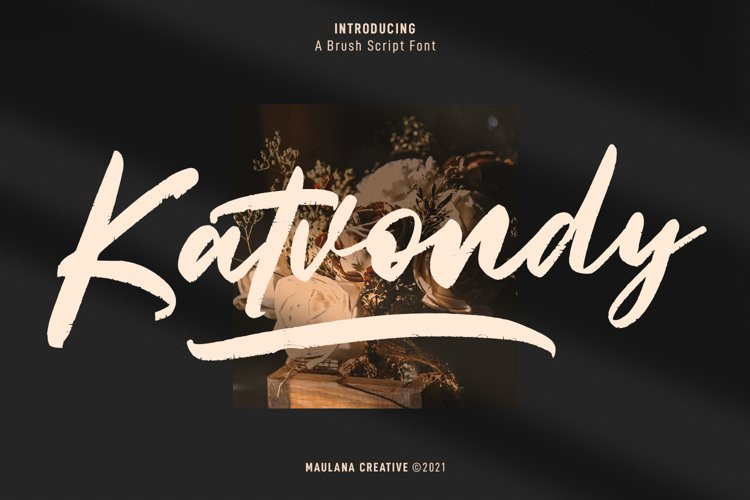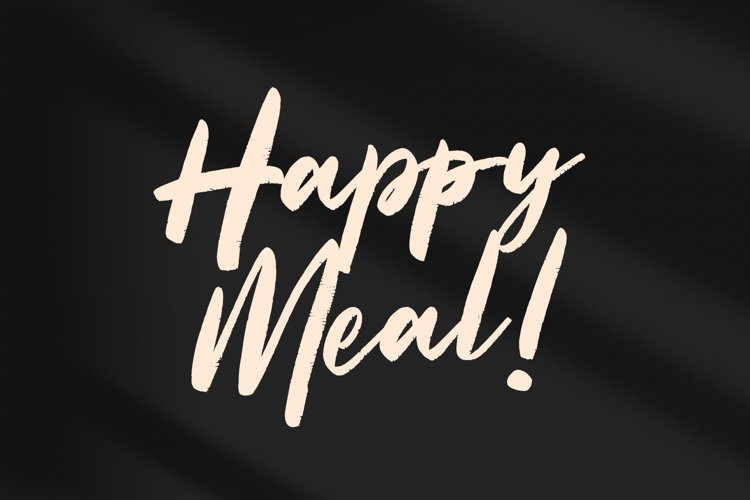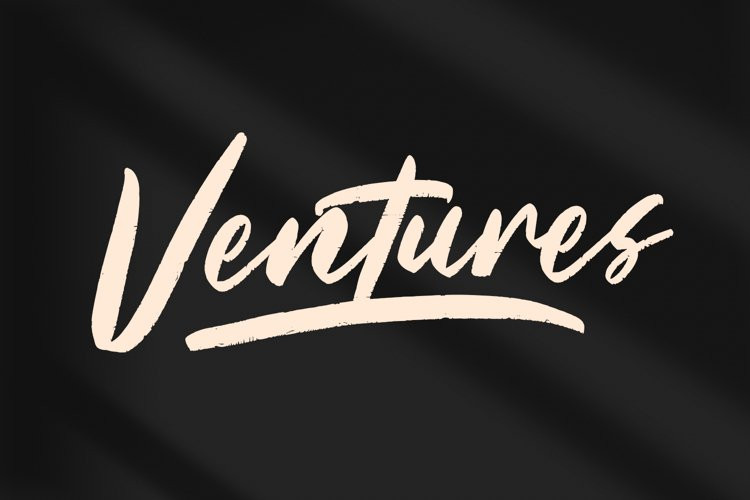
Katvondy Font
Katvondy is a marker handwritten font. With slanted bold marker stroke, fun character with a bit of ligatures and swashes. To give you an extra creative work. Katvondy font support multilingual more than 100+ language. This font is good for logo design, Social media, Movie Titles, Books Titles, a short text even a long text letter and good for your secondary text font with sans or serif. Make a stunning work with Katvondy font.